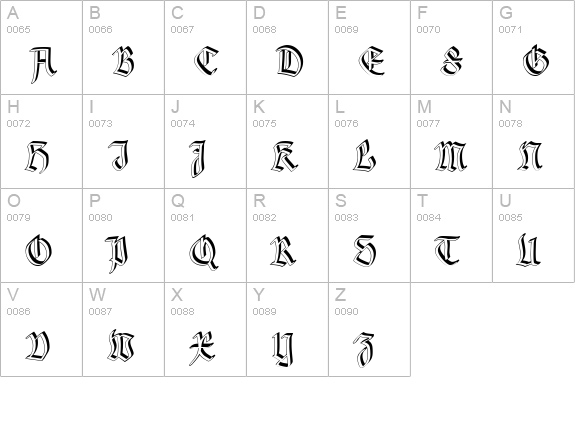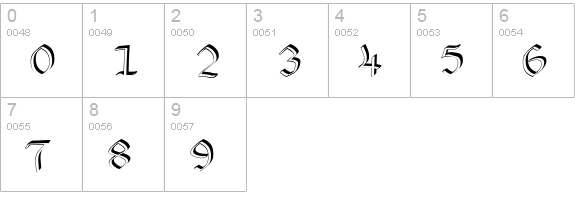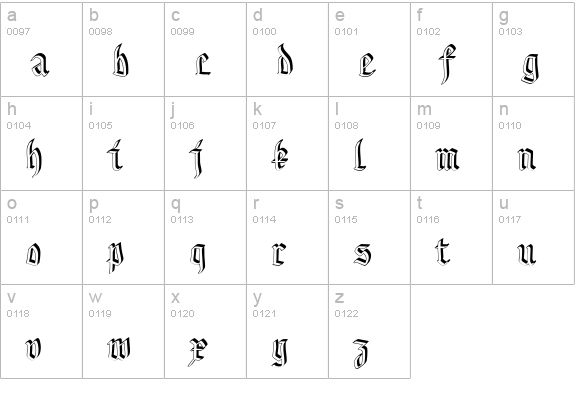
GothamburgShadowed Font Details
GothamburgShadowed font is a striking and bold display typeface that exudes a mysterious and gothic charm. With its intricate details and sharp edges, this font is perfect for creating eye-catching headlines, posters, and logos that demand attention. The shadowed effect adds depth and drama to your designs, making them stand out from the crowd. The best part? GothamburgShadowed font is completely free to download at FontsMarket.com. This means you can easily add this unique and edgy font to your collection without breaking the bank. Whether you're working on a personal project or a client's branding, GothamburgShadowed font is sure to make a lasting impression. Download it today and unleash your creativity with this captivating typeface.